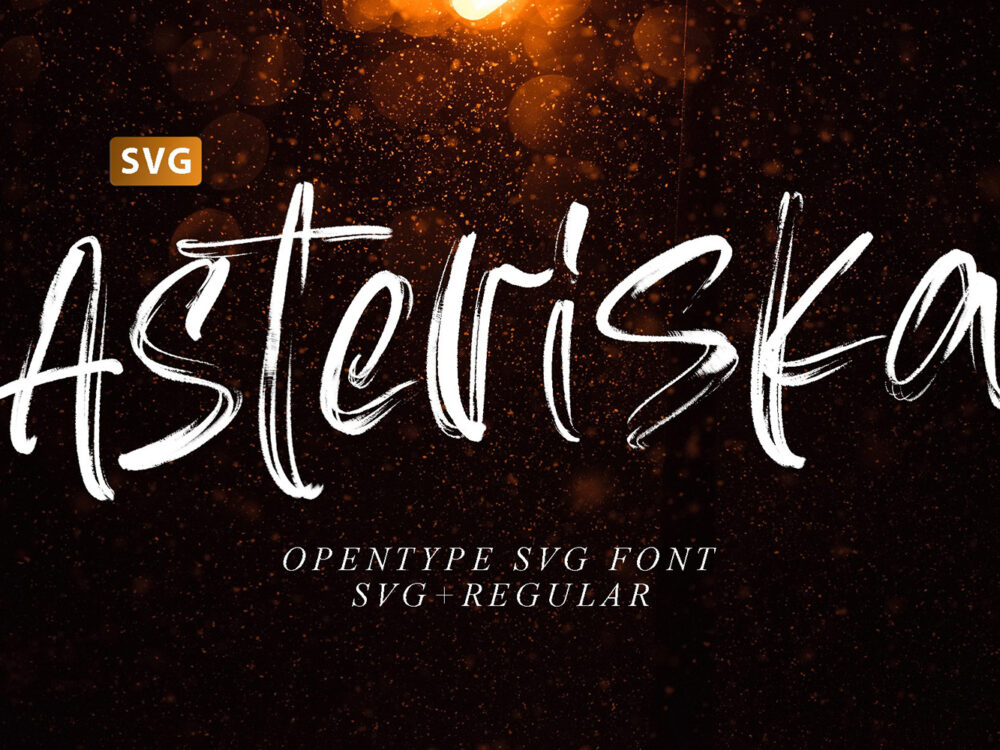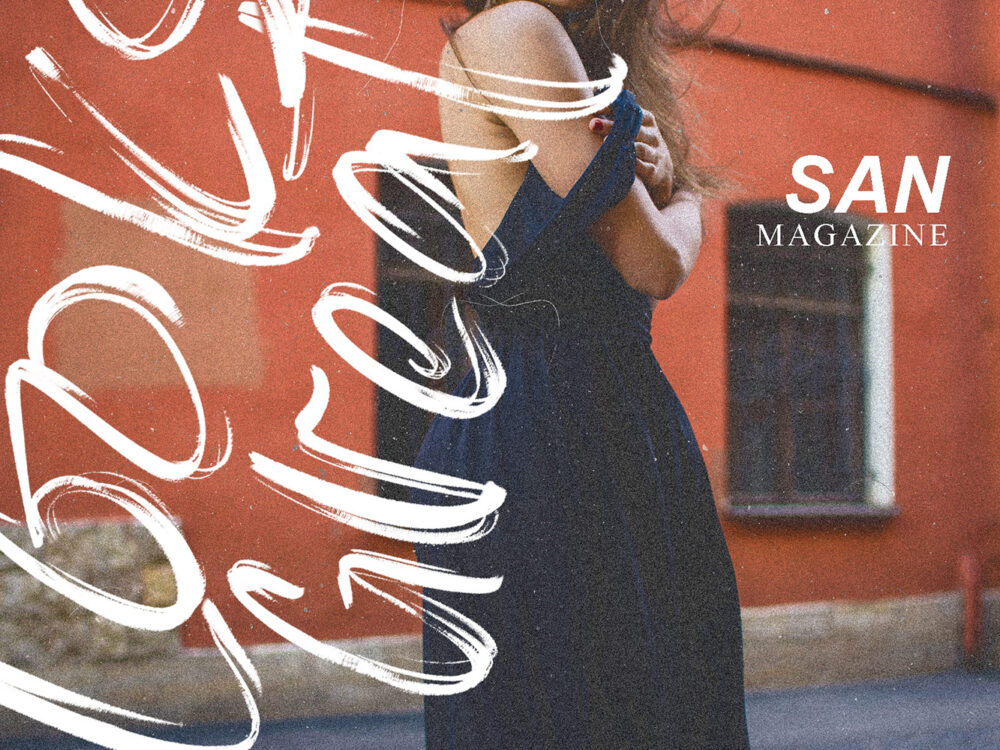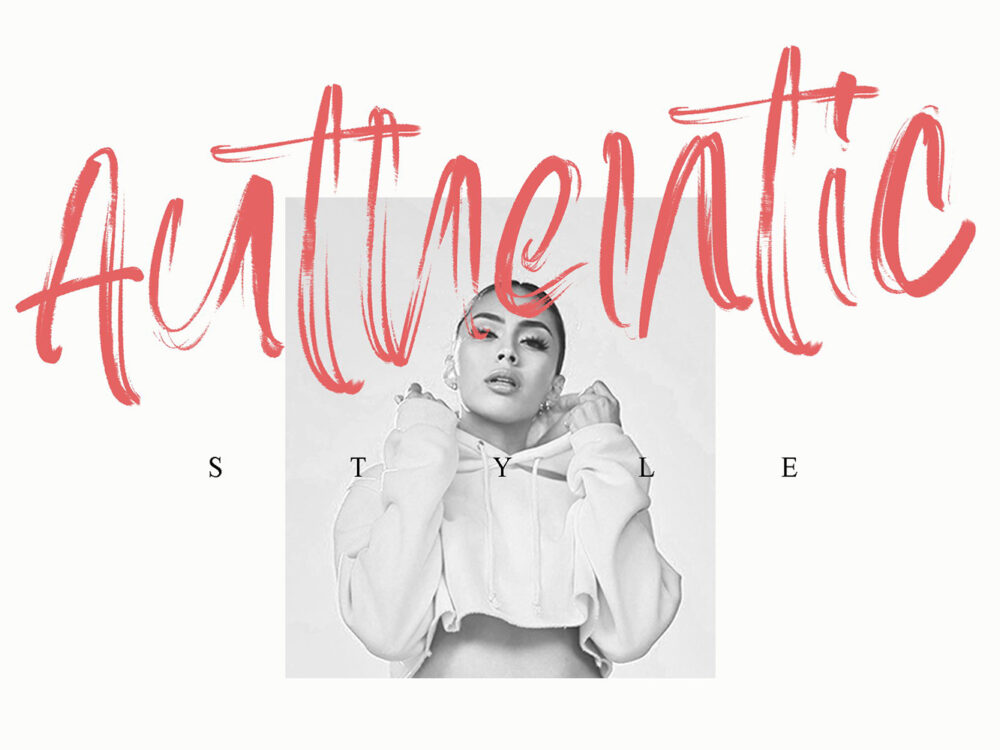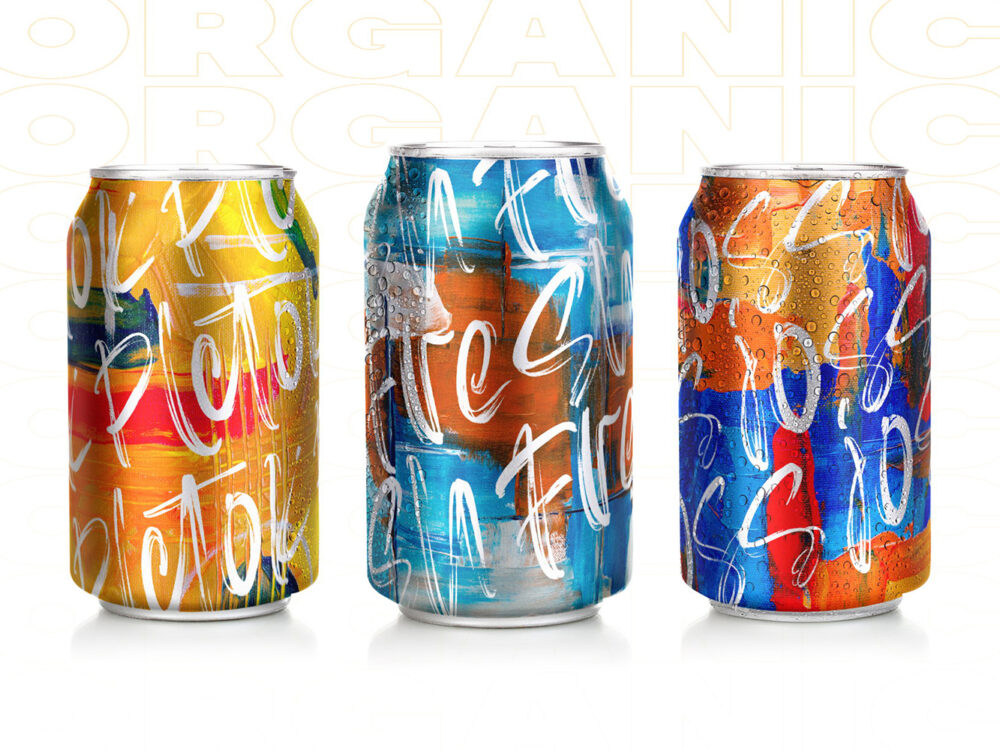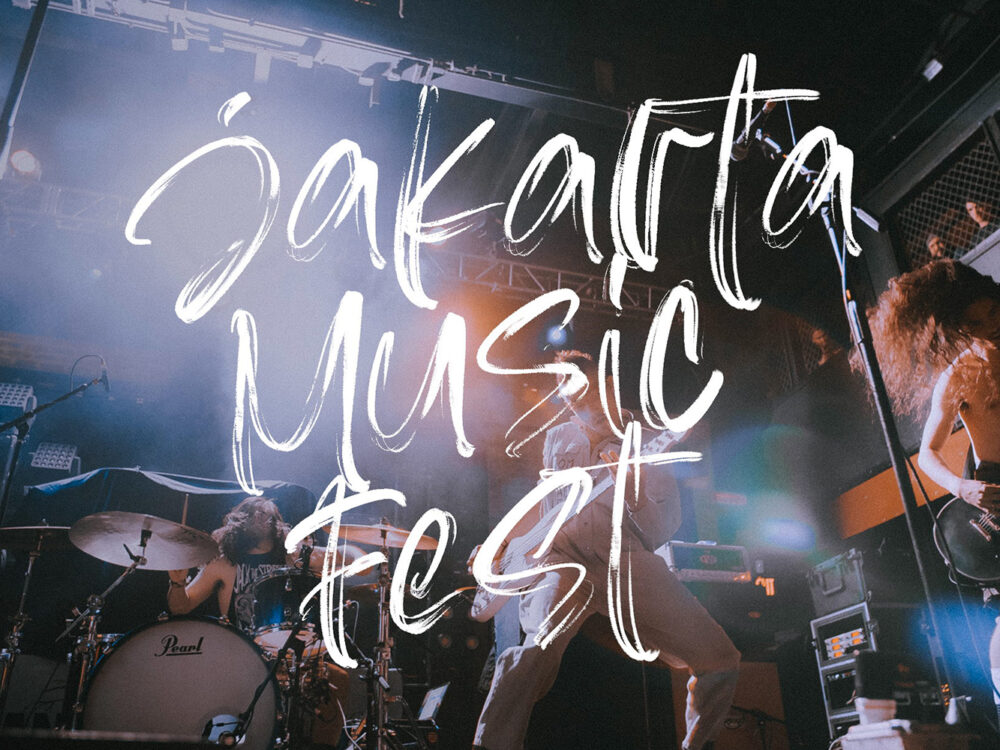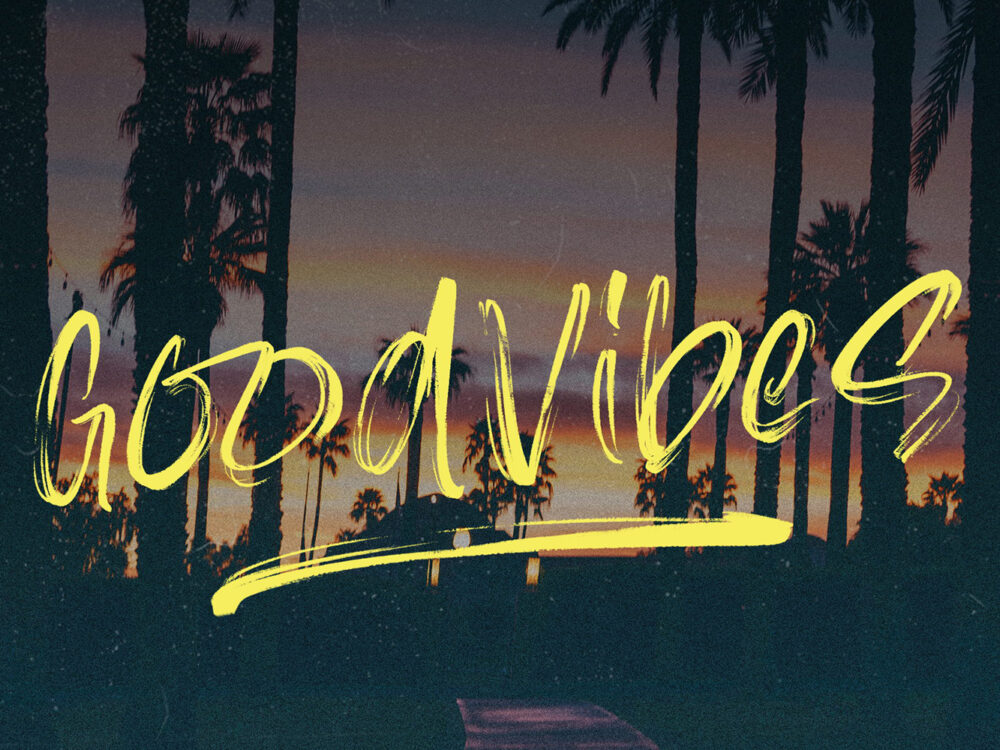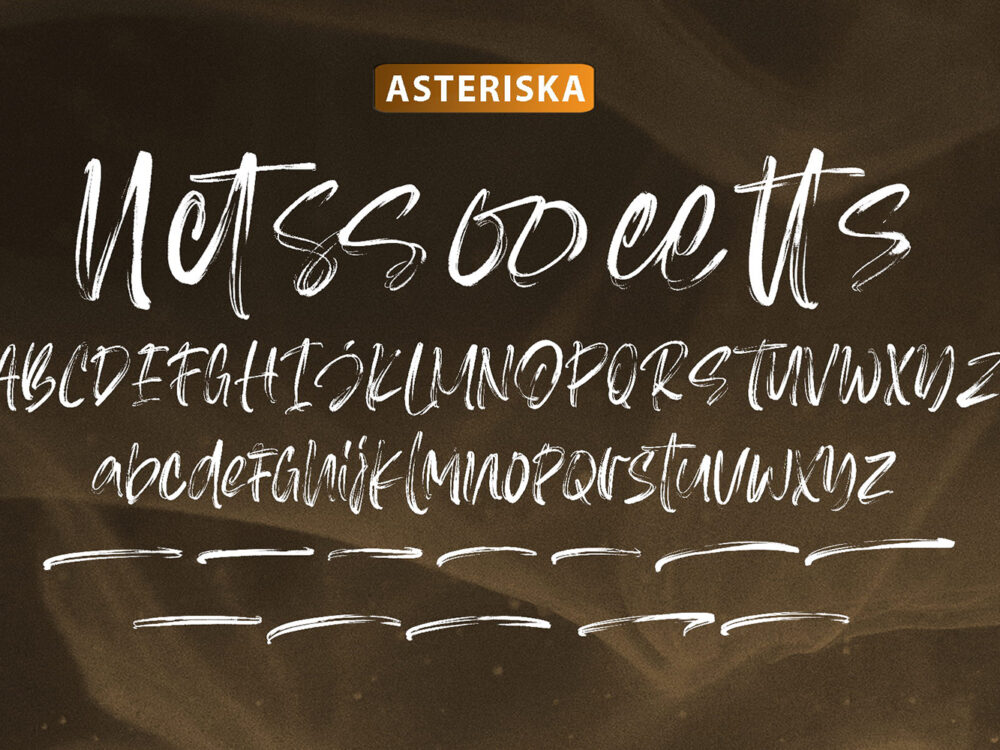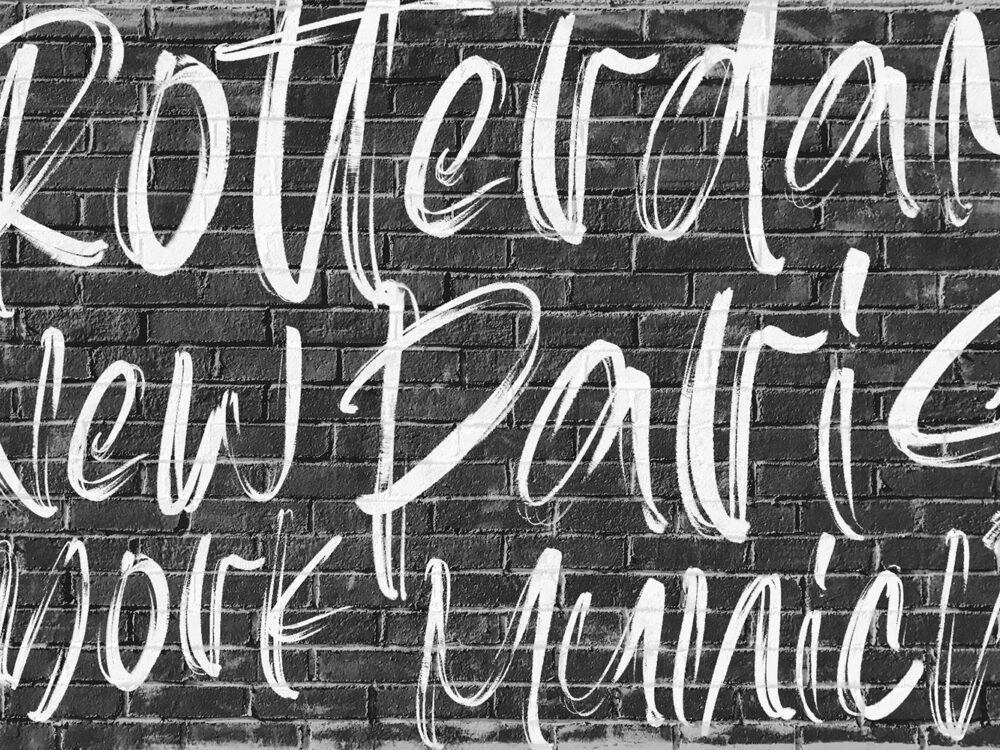
Asteriska Brush Font
Add originality and modern style to any of your design projects using the Asteriska Brush Font. This font is handwritten and has a beautiful natural texture. It is suitable for various projects that require a handwritten font for the base. This font is a demo version, free for personal use only. Please purchase the full version for commercial use.